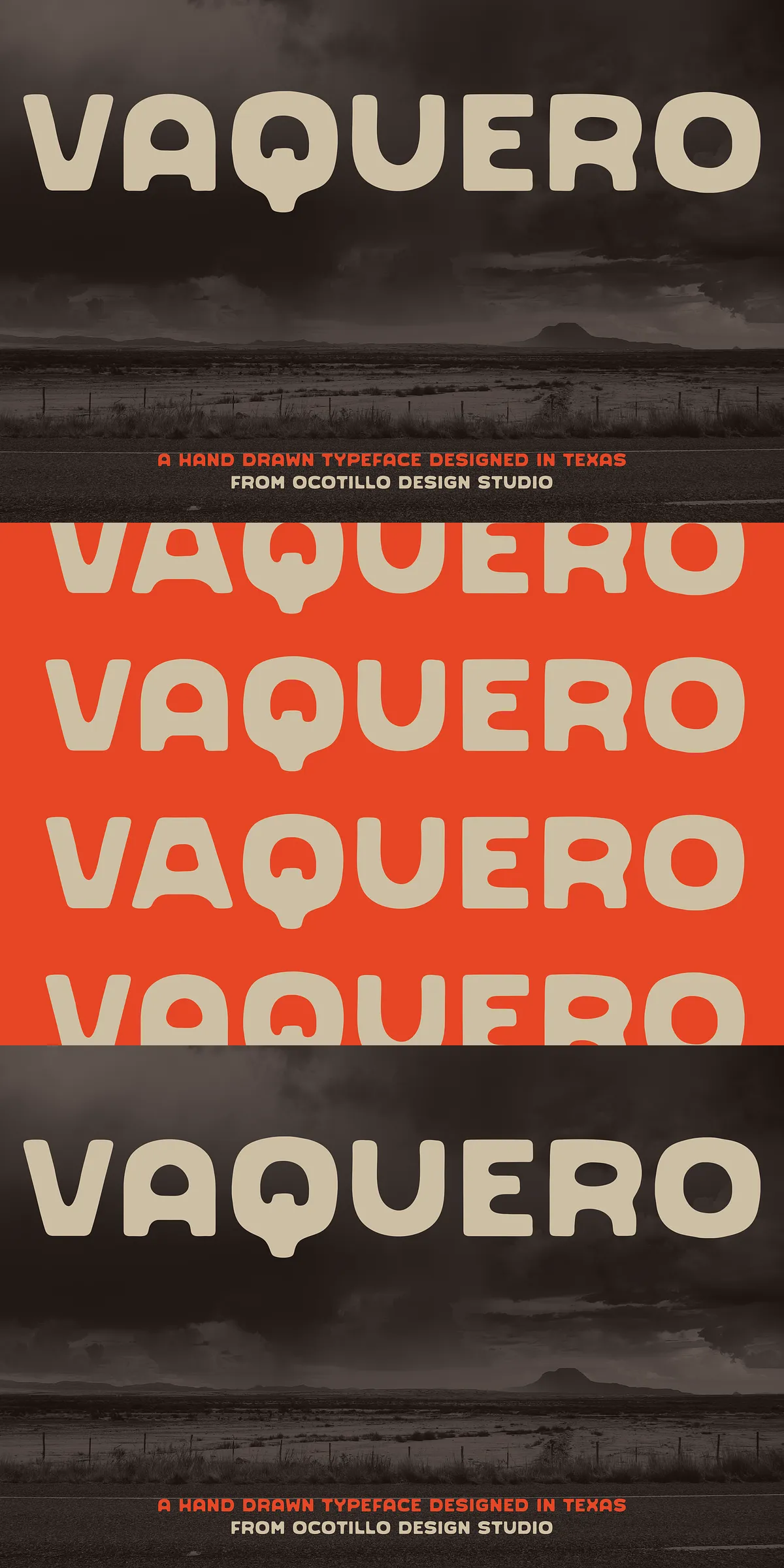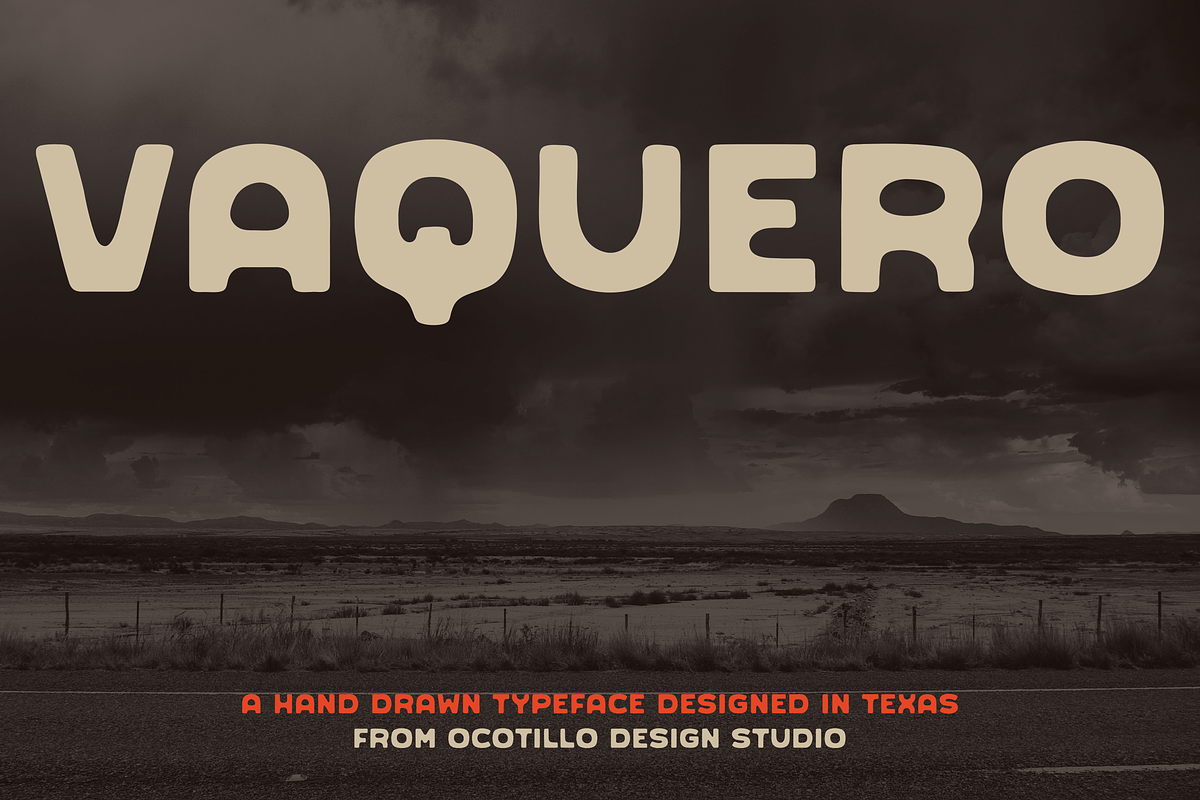
Vaquero is a meticulously crafted handmade typeface that draws deep inspiration from the rugged, weathered aesthetics of the American West. Designed to evoke the spirit of vintage western typography, Vaquero captures the imperfect and organic nature of traditional letterpress and sign painting styles. This distinctive font’s charm lies in its unique, tactile quality, featuring an alternate A glyph that adds stylistic flair and flexibility for creative typography. Its bold character and authentic feel make it an outstanding choice for projects seeking to convey heritage, adventure, and rugged beauty.
Craftsmanship Rooted in Western Tradition
The design of Vaquero embraces the tactile nature of handmade lettering, reflecting the rough textures and weathered surfaces typical of western signage. This typeface channels the historical essence of fonts crafted through manual processes, enabling designers to bring a sense of artisanal authenticity to their work. Each glyph resonates with a handcrafted aesthetic, resulting in letterforms that feel lively and imperfect in all the right ways. By using Vaquero, designers can infuse their branding, packaging, posters, and editorial materials with nostalgic charm and bold personality.
Distinctive Alternate A Glyph for Creative Expression
A notable feature of Vaquero is its alternate A glyph, which offers additional versatility and stylistic options when composing text. This alternate character can be used to introduce variety and visual interest to typographic layouts, enriching the overall design without compromising readability. The ability to switch between the primary and alternate A enhances customization potential and allows for tailored branding applications. This thoughtful inclusion reflects Vaquero’s commitment to creative flexibility and attention to detail.
Ideal Usage Scenarios and Practical Applications
Vaquero is perfectly suited for projects that require a bold, authentic typeface with historical resonance. Its handcrafted quality and western-inspired design make it ideal for logo creation, branding for outdoor or heritage-minded businesses, posters, packaging, and editorial design. Whether your project seeks to capture the rugged spirit of the frontier, deliver a vintage western vibe, or convey a handcrafted artisanal quality, Vaquero offers a compelling typographic voice. It also works effectively in large display settings, making a strong visual impact while maintaining readability.
Combining Strength and Authenticity in Design
Beyond its strong visual appeal, Vaquero delivers functional versatility through its carefully balanced character shapes and weight. It maintains clarity without sacrificing the organic, imperfect lines that define its handmade style. This balance ensures it functions well both in print and digital environments, supporting a range of creative projects. Designers looking for a font that actively communicates rugged authenticity while remaining versatile will find Vaquero an invaluable asset.
Conclusion: Vaquero as a Statement of Authentic Western Heritage
In summary, Vaquero is a handmade typeface designed to evoke the rich history and weathered charm of the American West. With its distinctive alternate A glyph and rugged design, it offers designers an engaging, authentic tool to cultivate bold, nostalgic visual narratives. Its strong presence and artisanal character make it ideal for creative projects that demand a genuine connection to tradition and craftsmanship. Employ Vaquero to make your branding, editorial, or display projects stand out with untamed, vintage flair rooted in western heritage.